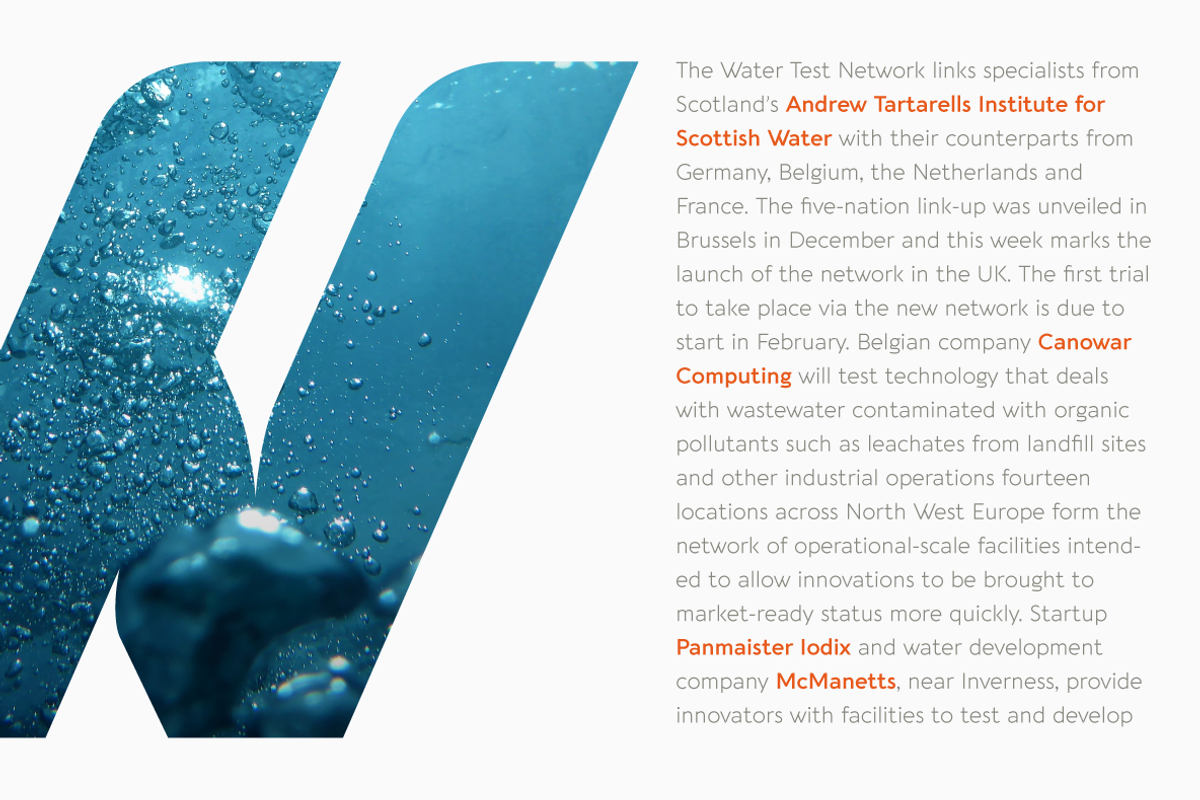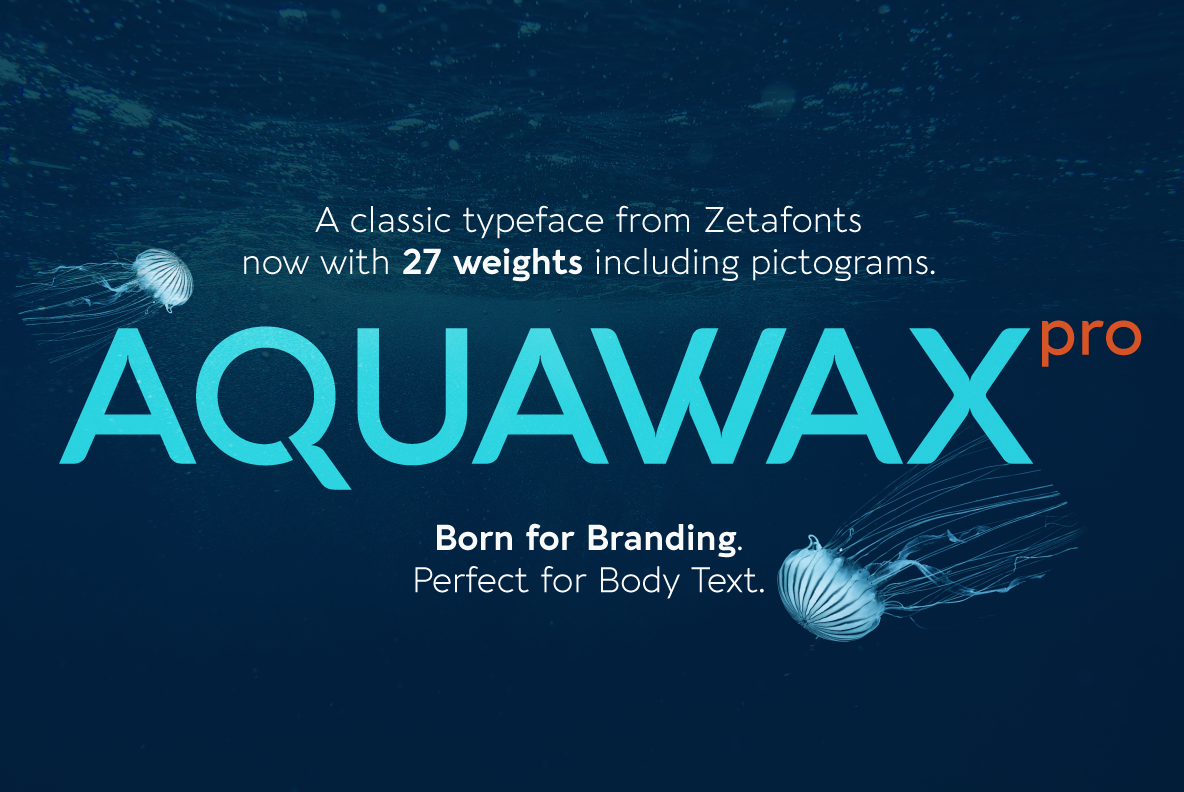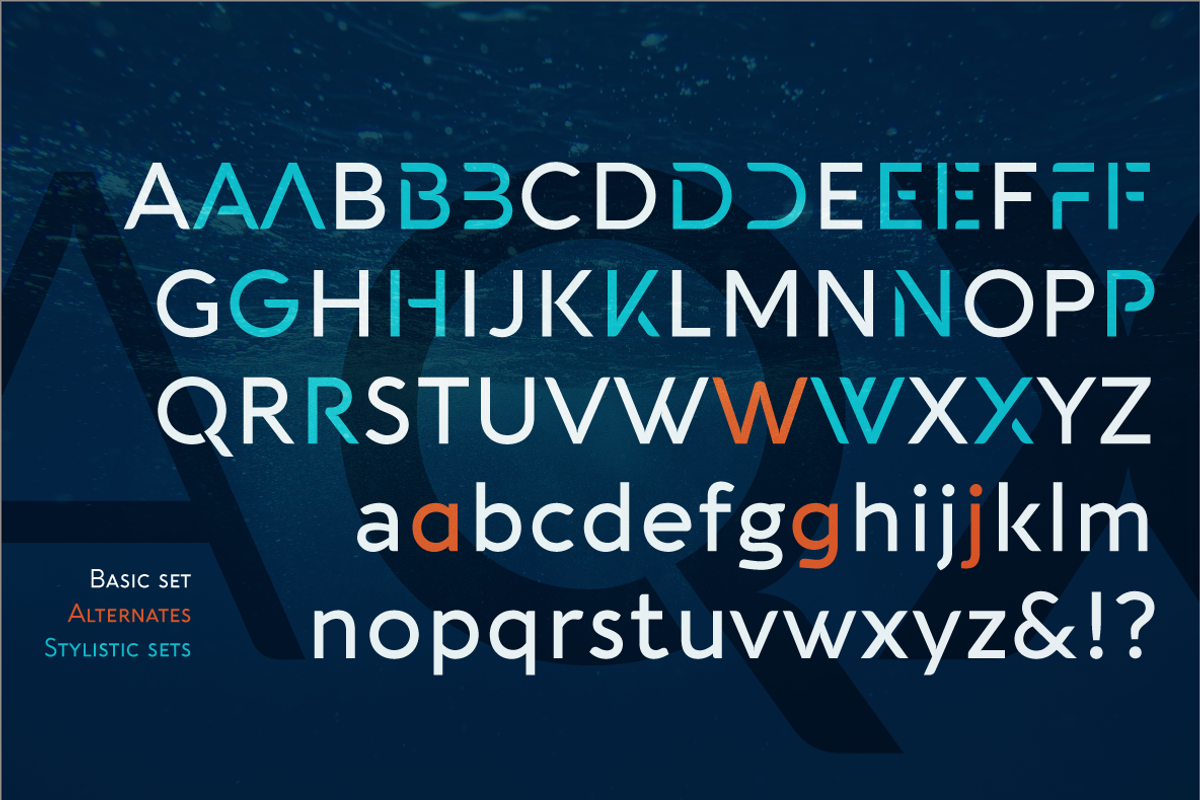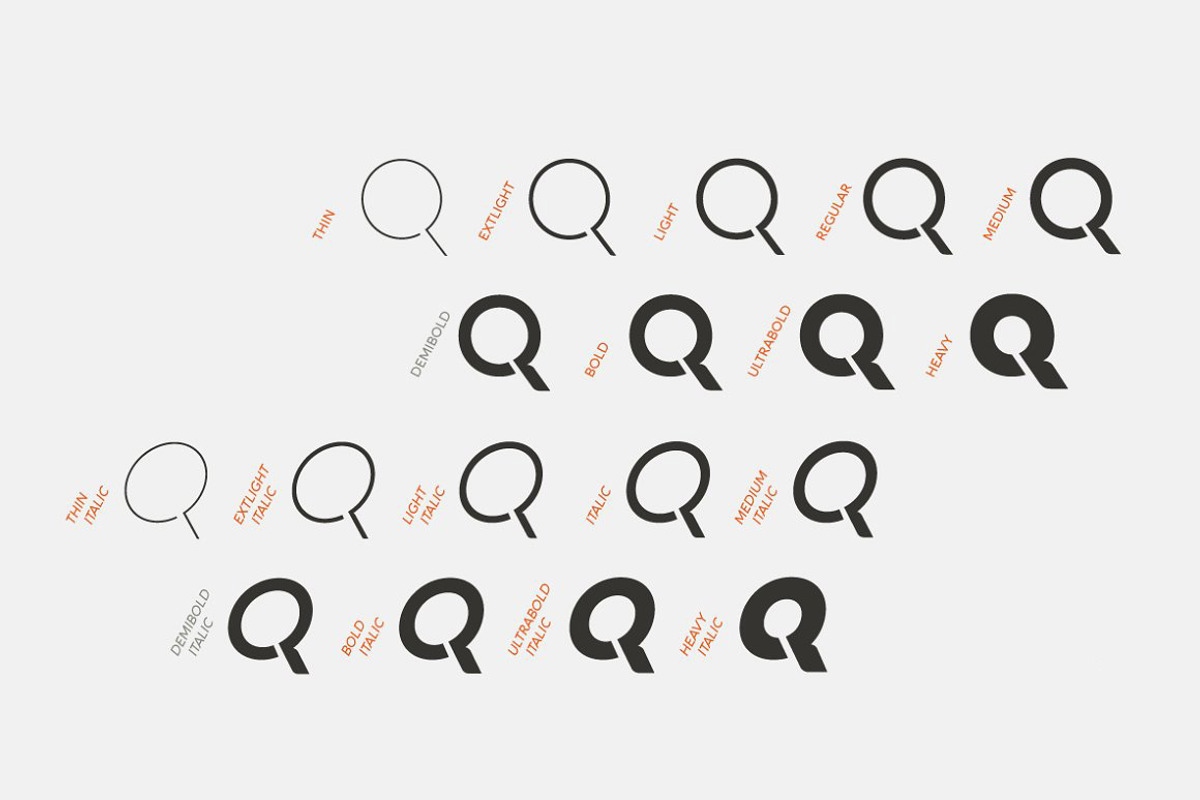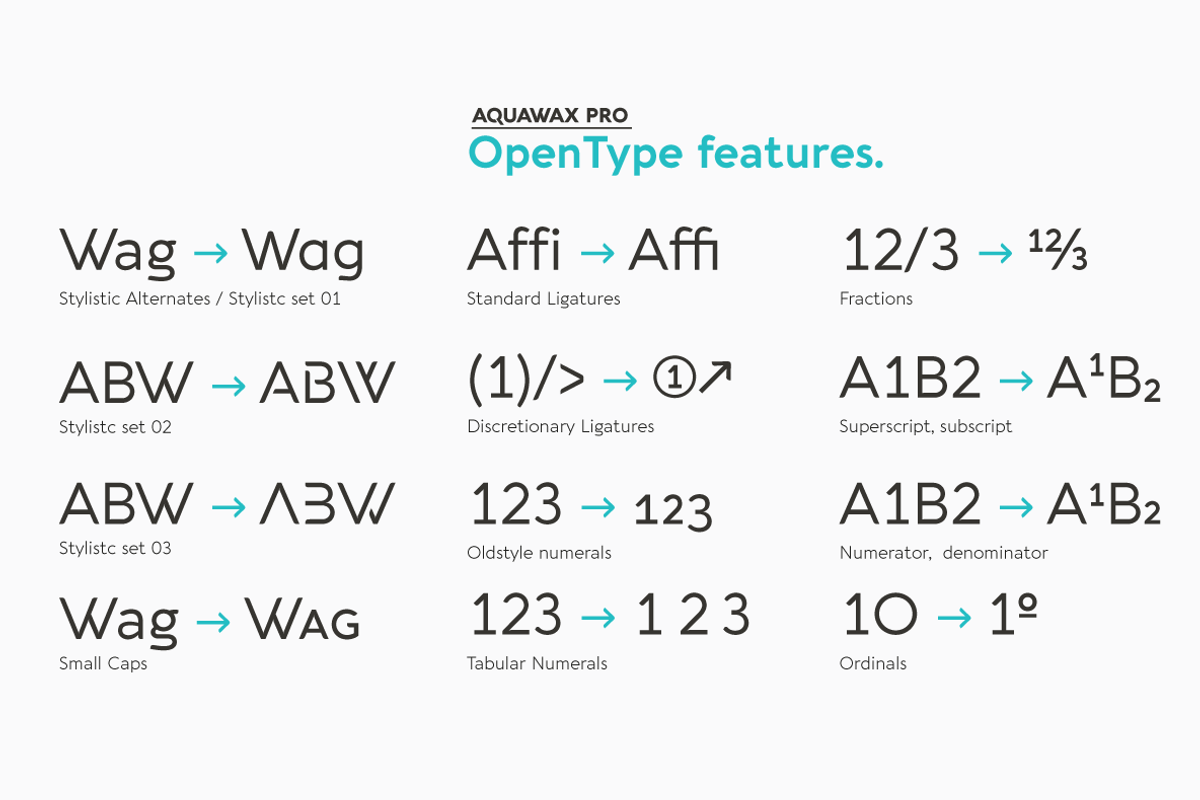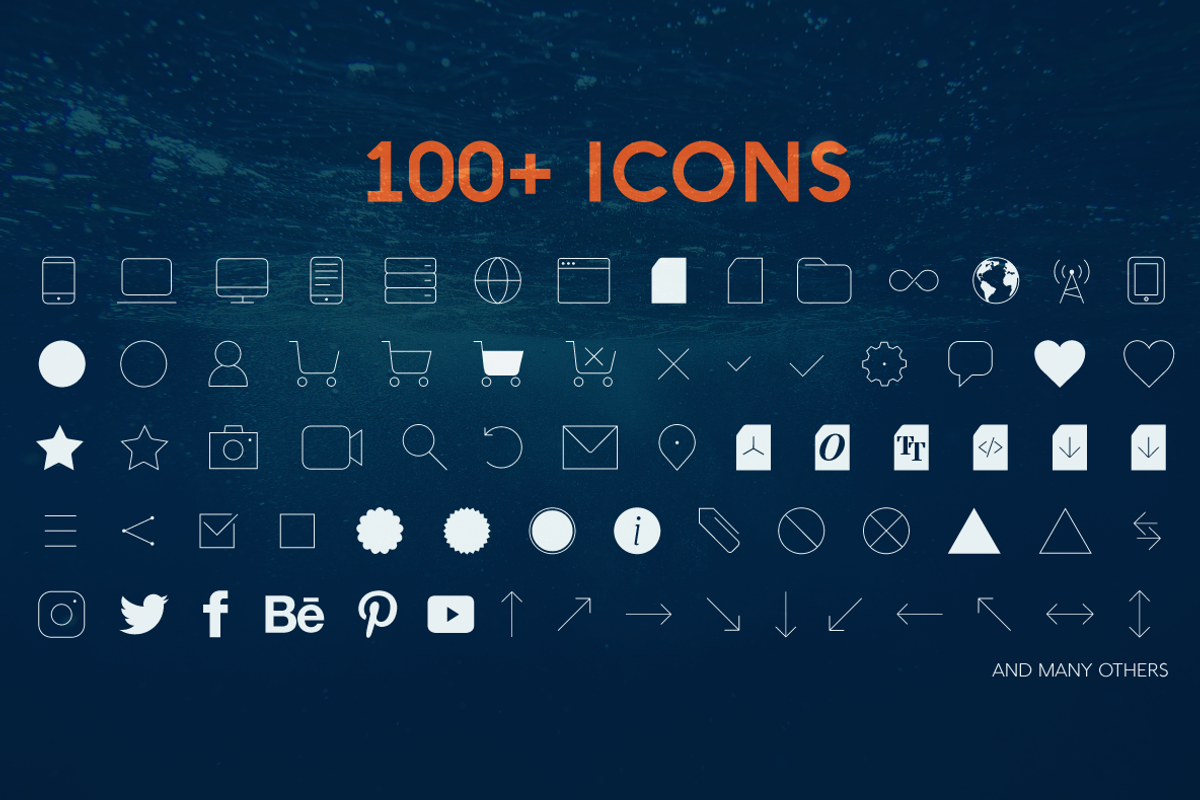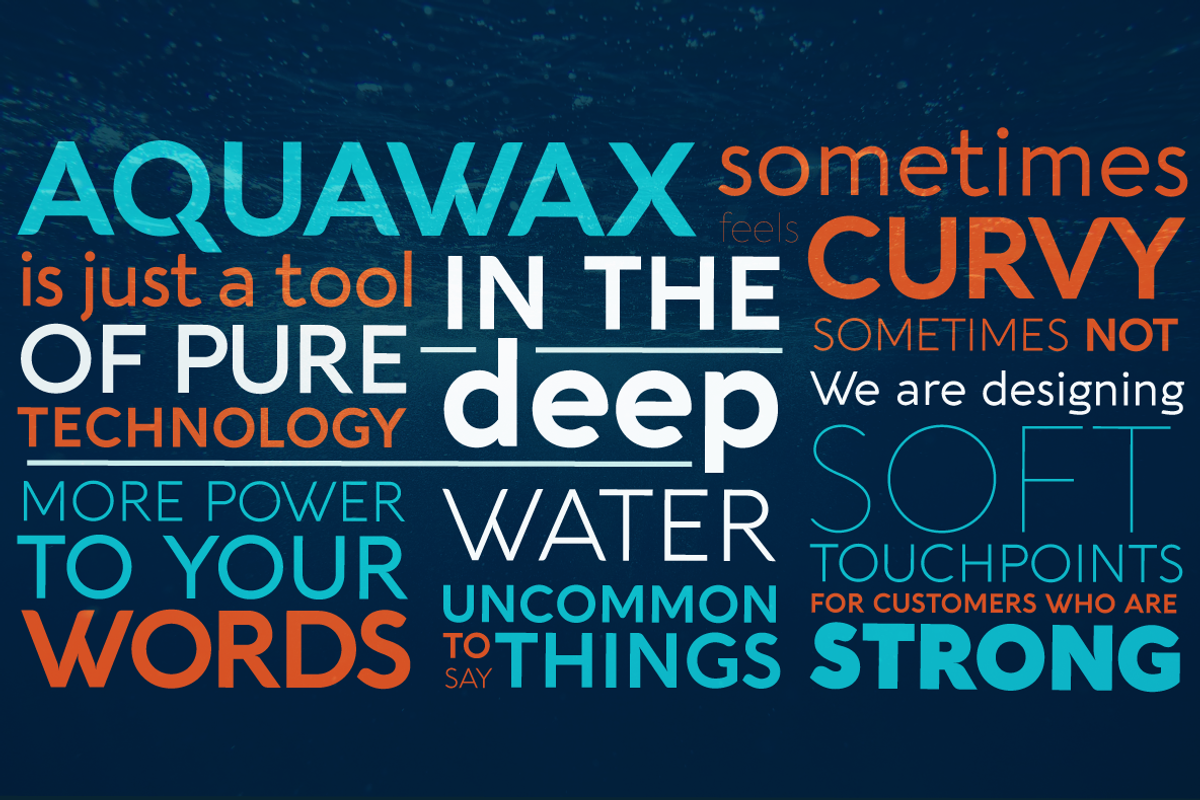
Aquawax Pro - 27 fonts
- 27 styles: 9 weights in upright, 9 in italic, 9 pictograms
- +100 glyphs that covers +220 languages using the Latin alphabet, Greek, Russian Cyrillic
- Opentype features: small caps, positional figures, alternate letterforms, stylistic sets, discretionary ligatures, arrows and extra punctuation
Created as a custom brand typeface in 2008 by Francesco Canovaro, Aquawax is one of Zetafonts most successful typefaces - having been chosen, among the others, by Warner Bros for the design of the logo for the Aquaman movie. Its logo design roots are obvious in the design details, from the blade-like tail of the Q and the fin-like right leg of the K to the intentionally reversed uppercase W, as well as the rounded edges softening the stark modernist lettershapes. While this details make the typeface extremely suitable for logo and display design, especially in the bolder weights, the open, geometric forms of the letters and a generous x-height make it extremely readable at small sizes, making it perfect for body text and webfont use.
In 2019 the family was completely redesigned by the Zetafonts team, expanding the original glyph set to include Cyrillic and Greek and adding three extra weights and italics to the original six weights, for a total of 27 weights (including 9 pictograms). The restored and revamped version, named Aquawax Pro, also includes full Open Type features for Positional Figures, Stylistic Alternates, Discretionary Ligatures and Small Caps, and adds to the typeface new alternate glyph shapes, accessible as Stylistic Alternates. Optimized for maximum screen readability, it covers over 200 languages that use the Latin, Cyrillic and Greek alphabet, with full range of accents and diacritics.